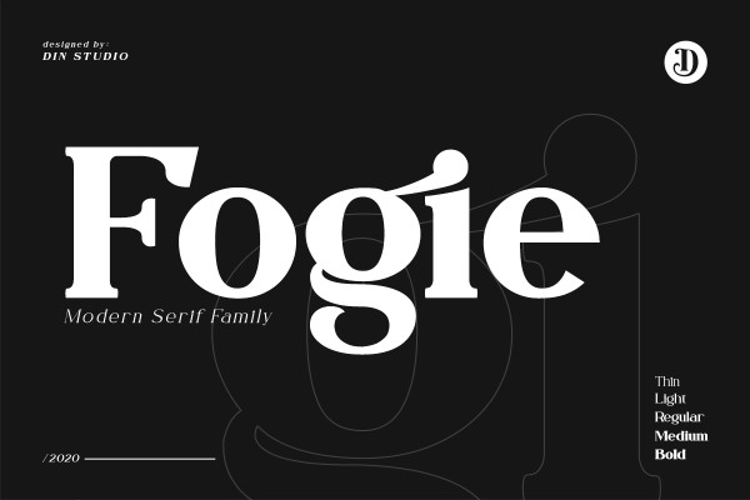
Fogie Font
Fogie is a modern serif font family designed by Din Studio featuring 10 fonts. This family also features many ligatures and alternates designed with powerful OpenType features and is perfectly suited for graphic designs and any display uses. It could easily work for web, signages, corporates, as well as editorial designs.
Features include:
• Ligatures
• Multilingual Supports
• Numerals and Punctuations